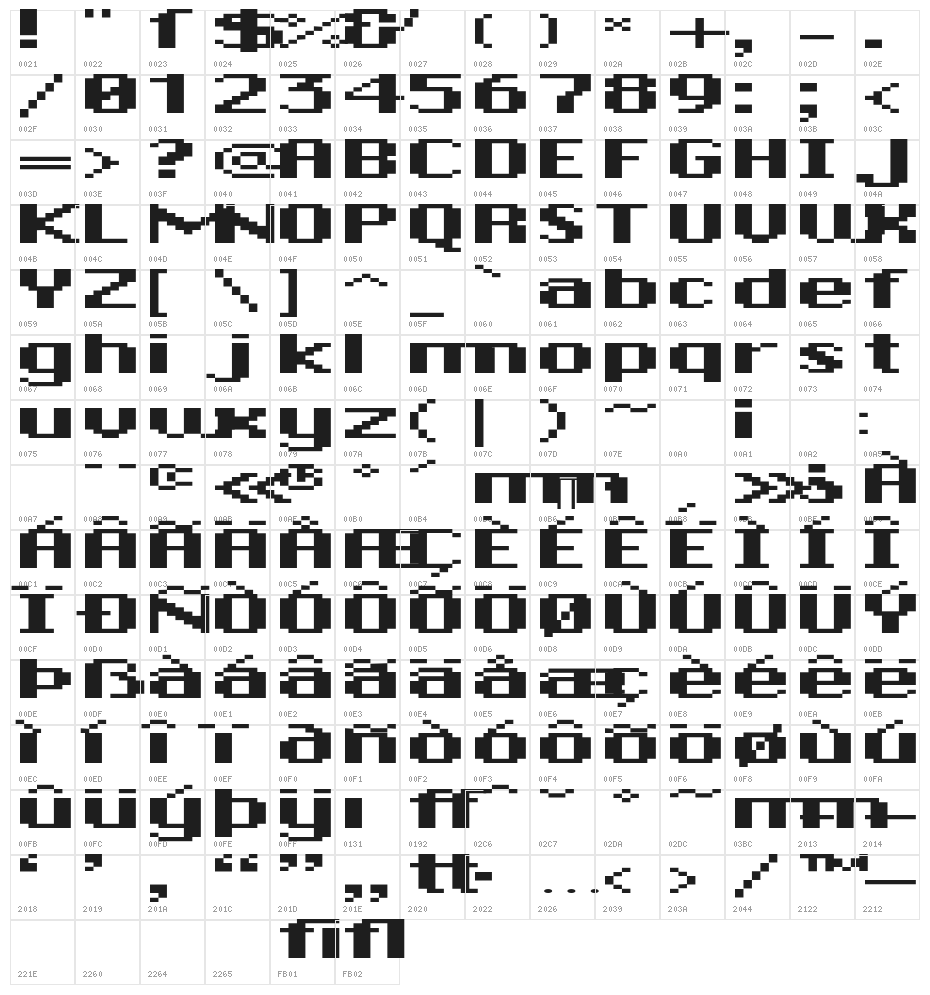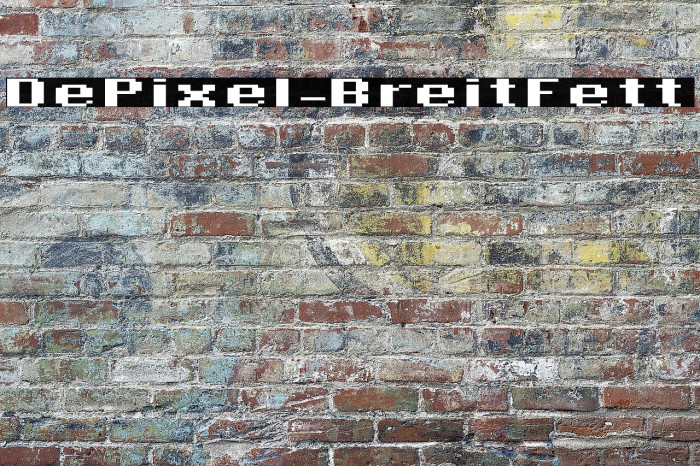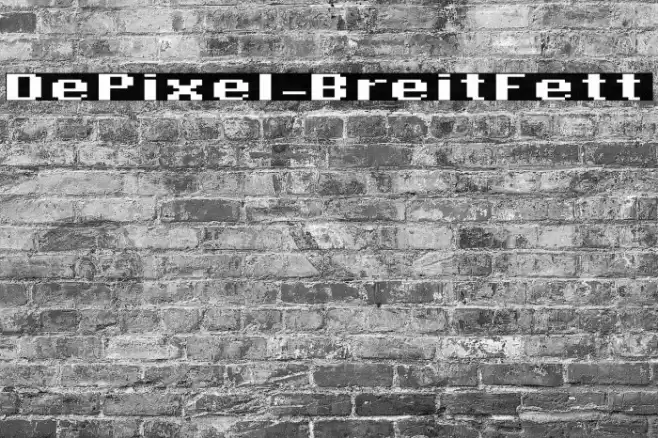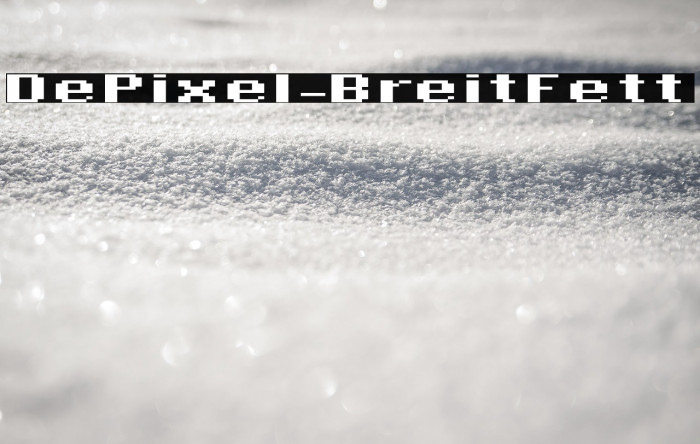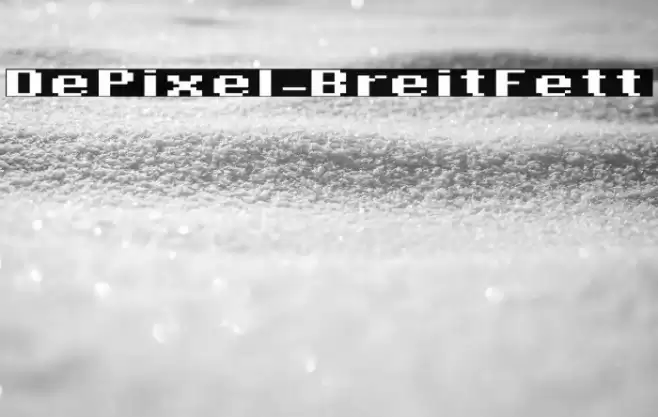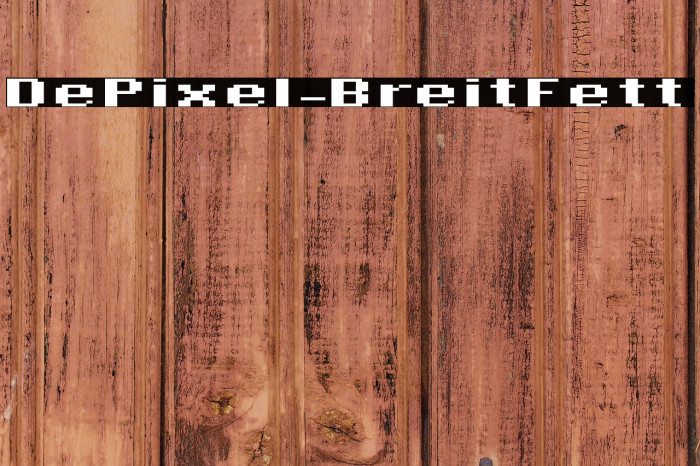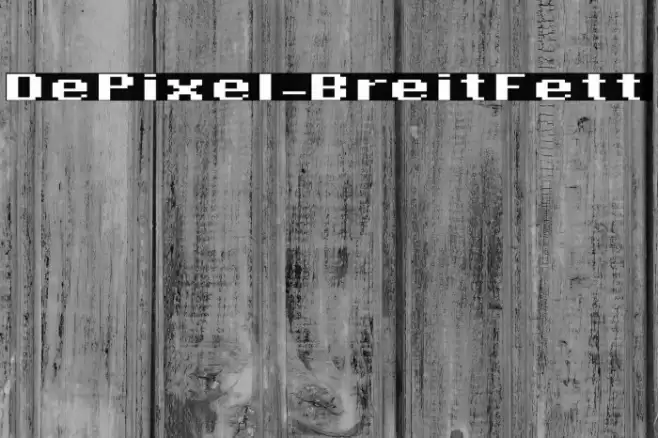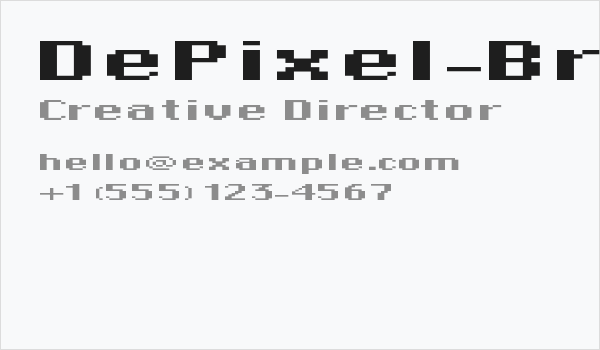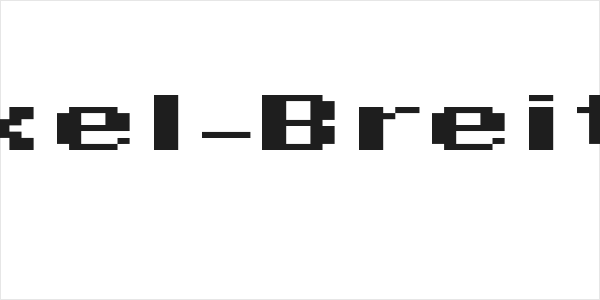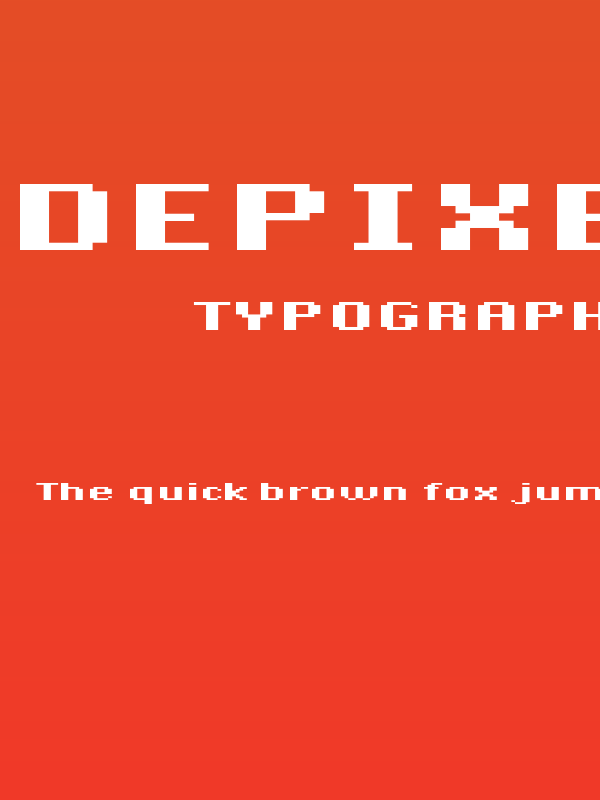
DePixel-BreitFett Font
DePixel-BreitFett Description
This font exhibits a bold, pixelated style reminiscent of early digital displays and retro video games. Each character is constructed with a blocky, grid-like appearance, emphasizing a strong geometric form. The uppercase and lowercase letters maintain a consistent width, creating a uniform and cohesive look. The numerals and special characters follow the same design principles, ensuring visual harmony across all glyphs. This font's distinct pixelated aesthetic makes it ideal for projects seeking a nostalgic or tech-inspired vibe.
| Proposed Projects | Ideal for retro video game graphics, tech-themed posters, digital art, and nostalgic branding. |